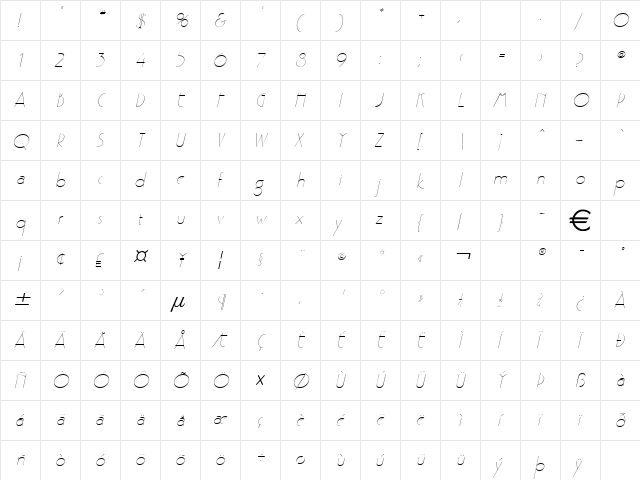
GastonWide Italic
GastonWide is a composed and adaptable typeface that performs quietly and consistently across a wide range of design contexts. The slanted form adds forward momentum and visual energy.